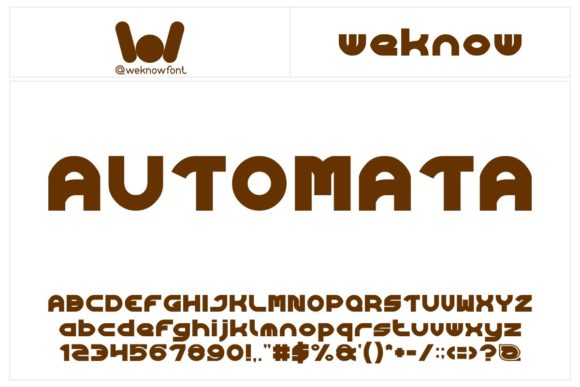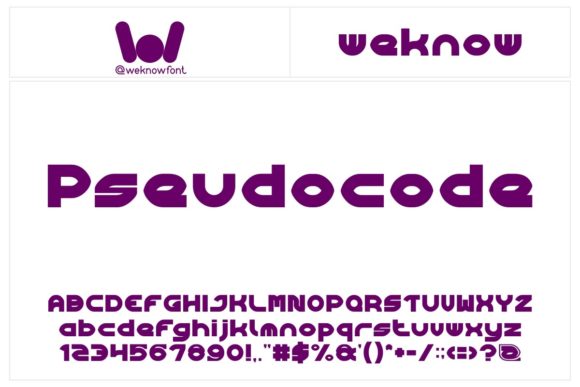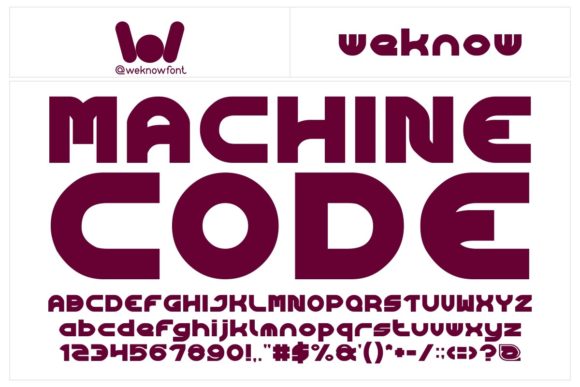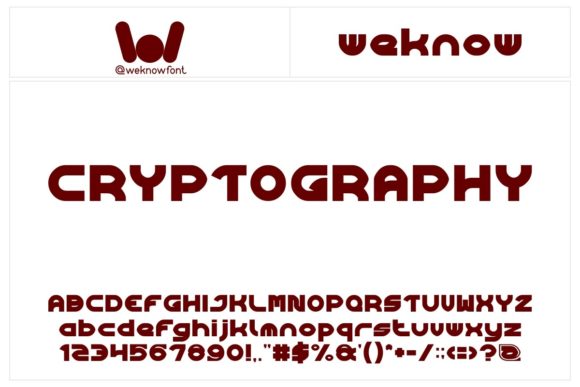
The Birth of a New Design Era
Have you ever stared at a blank page, waiting for the perfect font to spark your creativity? The moment when the right typography clicks, and your design comes alive, is a feeling unlike any other. For designers, it’s a thrill that never gets old.
Introducing Algorithm Font, a bold and stylish display font designed to elevate your designs to the next level. Whether you’re working on a corporate identity, a music album cover, or a YouTube video title, Algorithm Font is the perfect companion to help you convey your message with confidence.
What makes Algorithm Font truly valuable is its versatility and uniqueness. With its cool and bold style, it’s sure to make your designs stand out in a crowded market. As a designer, you know how hard it is to find the perfect font that fits your vision. With Algorithm Font, you can rest assured that your designs will be remembered for all the right reasons.
Algorithm Font Key Features
- Font Family: Algorithm is a sans-serif font family, designed to be highly legible and versatile.
- Unique Characteristics: The font’s distinctive design features include rounded corners, clean lines, and a balanced x-height, making it ideal for body text and titles.
Designer Review: Algorithm Font
Overall, I’d say Algorithm Font is an interesting addition to the world of typography. There are some things it does well, and others that leave room for improvement.
- ✨ Unique and bold design: Algorithm Font stands out with its distinctive, algorithm-inspired look.
- ✨ Versatile: It works well in various contexts, from digital interfaces to print materials.
- ✨ Good for headings: The font’s boldness and distinctiveness make it perfect for grabbing users’ attention in headings and titles.
- ⚠️ Readability issues: In smaller font sizes, Algorithm Font can become difficult to read, especially for prolonged periods.
- ⚠️ Limited expressiveness: While the font is bold and unique, it may not convey the same range of emotions and nuances as other, more expressive fonts.
- ⚠️ Not suitable for large blocks of text: Algorithm Font’s distinctiveness can become overwhelming when used extensively, making it less suitable for large bodies of text.
Algorithm Font is a great choice for designers looking to add a bold, unique touch to their projects. However, it’s essential to use it judiciously, balancing its distinctiveness with readability and expressiveness.
Algorithm Font is ideal for:
- Technical documents and presentations
- Scientific and mathematical writing
- Infographics and data visualizations
For best results, use Algorithm Font in conjunction with clear headings and concise text to create a visually appealing and easy-to-read design.
Alternatives to Algorithm Font for Designers
Open Sans is a clean and modern sans-serif font, suitable for a wide range of applications. It’s highly legible and works well in both digital and print media. Open Sans is a great alternative to Algorithm Font when you need a clean and minimalist design aesthetic.
Comparison to Algorithm Font: While Algorithm Font is a more distinctive and unique font, Open Sans is more neutral and versatile. Open Sans is a better choice when you need a font that blends in with its surroundings, whereas Algorithm Font is better suited for making a bold statement.
Lato is a elegant and sophisticated sans-serif font, ideal for use in corporate and branding contexts. It’s highly customizable and works well in both digital and print media. Lato is a great alternative to Algorithm Font when you need a font that conveys professionalism and sophistication.